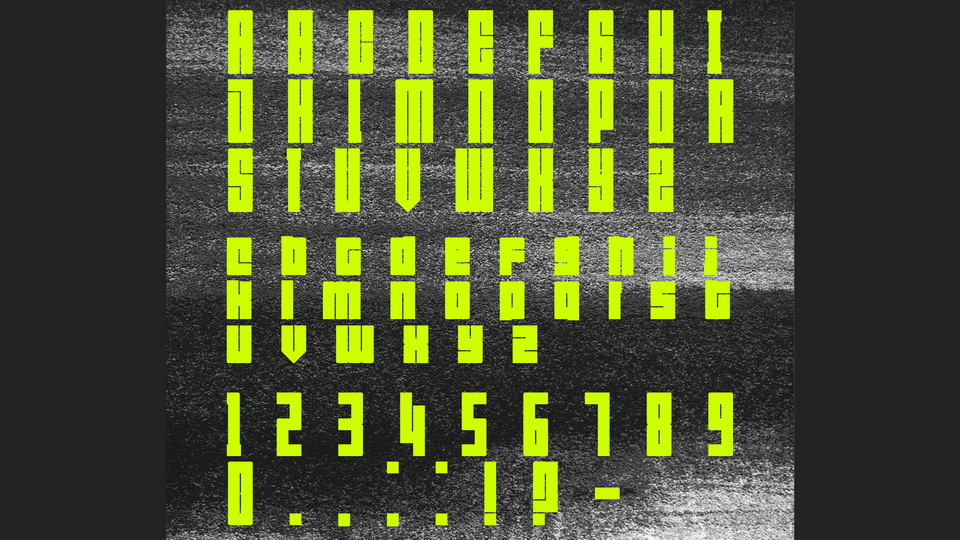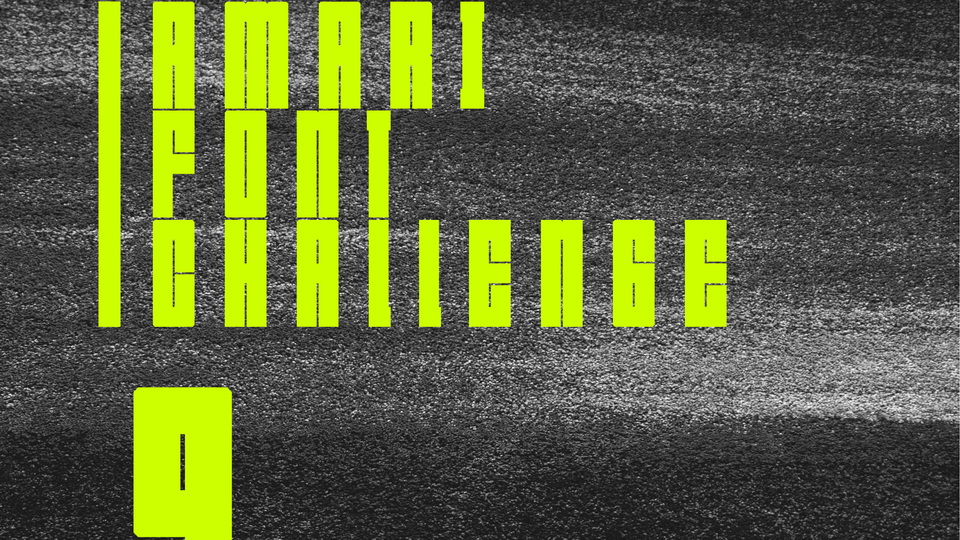
Amari Font 9/100
Amari Font 9/100 is a condensed display font based on geometric shapes and modules. With its bold look the font is great for posters, headlines, logos, games and tech projects.
Amari Font 9/100 is a part of the 100-day challenge to make one font a day for 100 days.